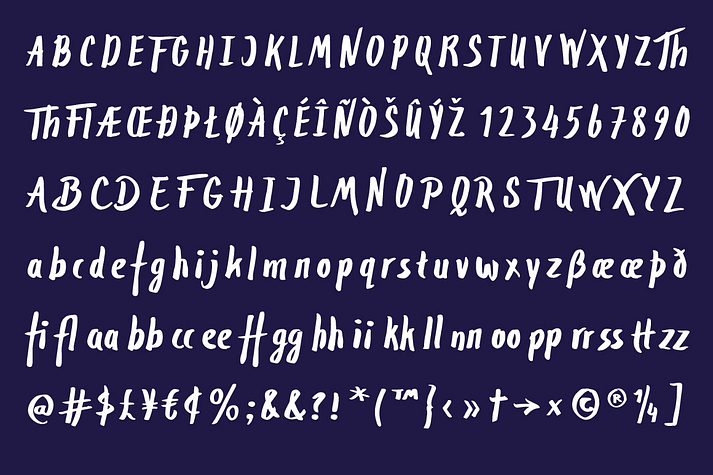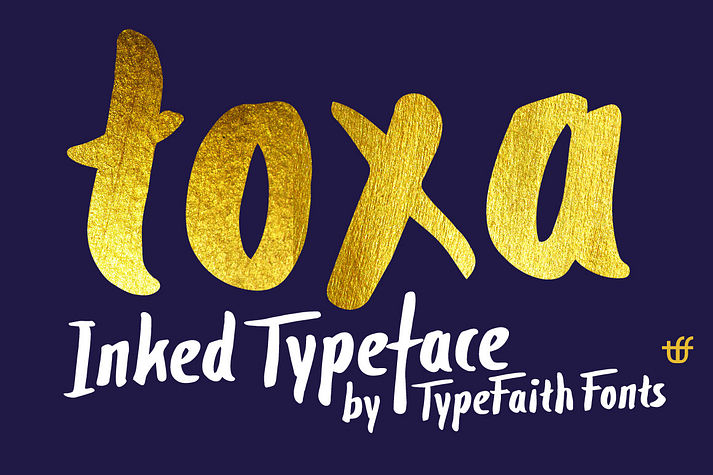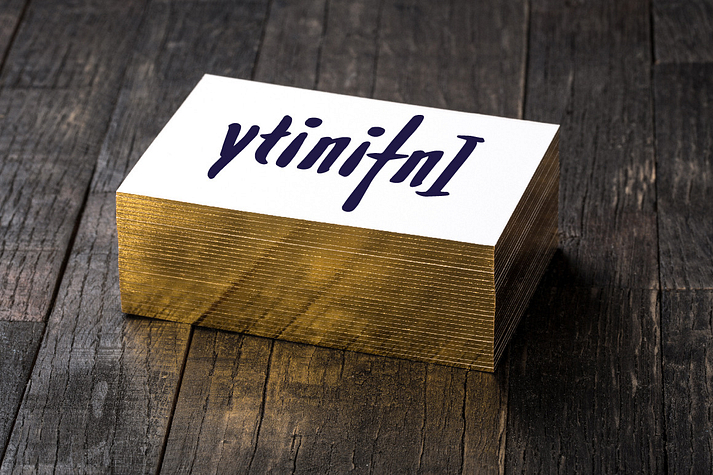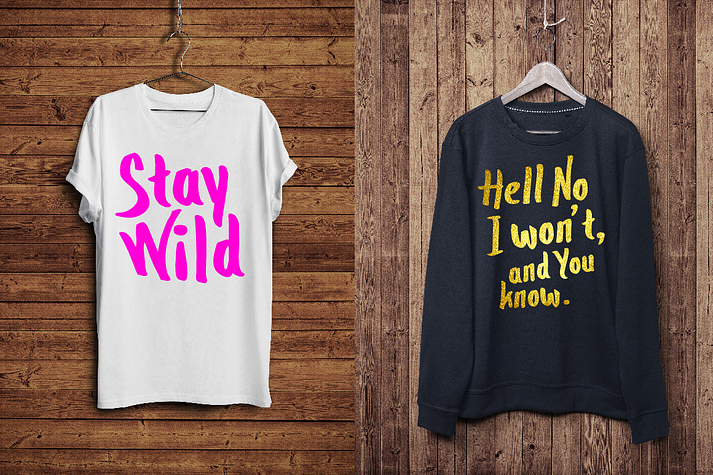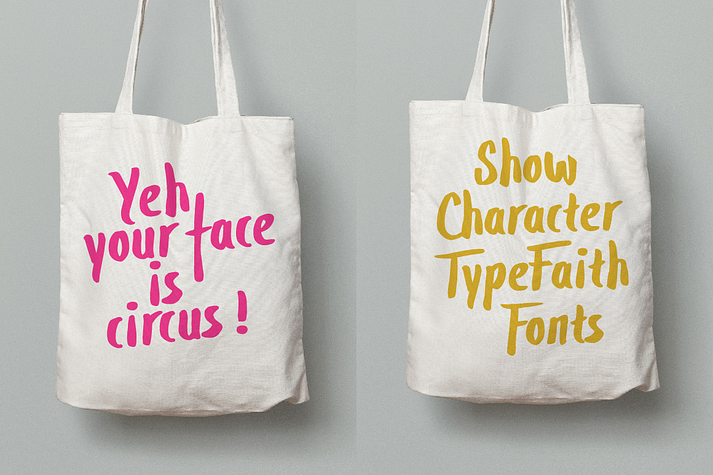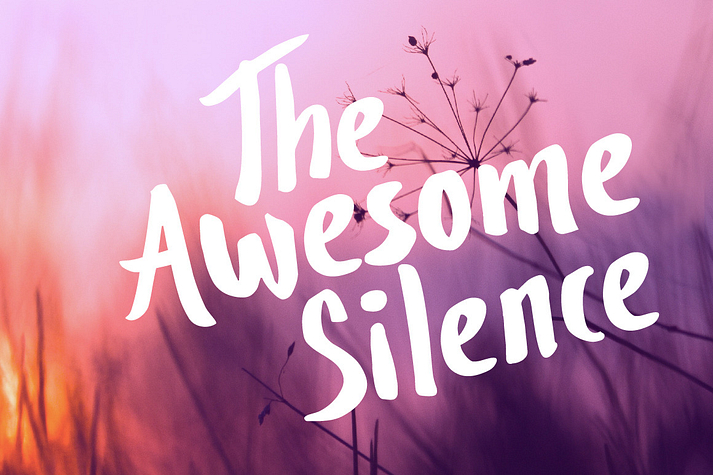
Toxa
Toxa is a brush display font family. This typeface has two styles and was published by Typefaith Fonts.
Toxa Ink is a simple handdrawn typeface with one set of alternates for all capitals and a set of ligature to replace double characters. To access the alternate letters of this font you will need software with Open Type features or a glyphs panel (Adobe Photoshop CC 2015, Adobe Illustrator, Adobe Indesign).
I made this font really fast and that is why it is so attractively priced. It is a really good font to do nice designs in Illustrator. It is brutal and that makes it fun to work with :-)